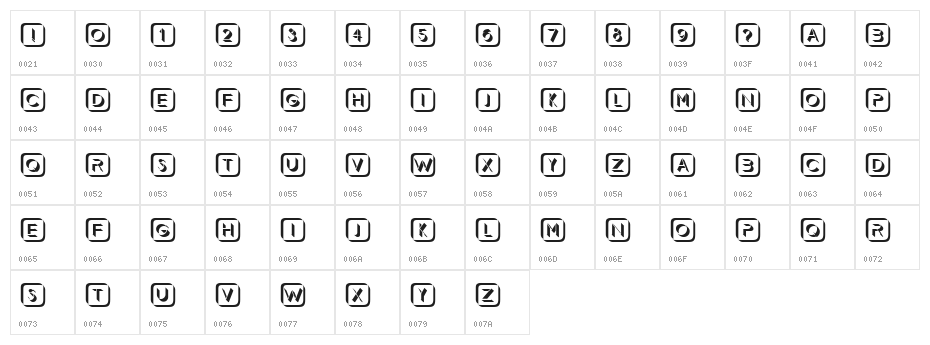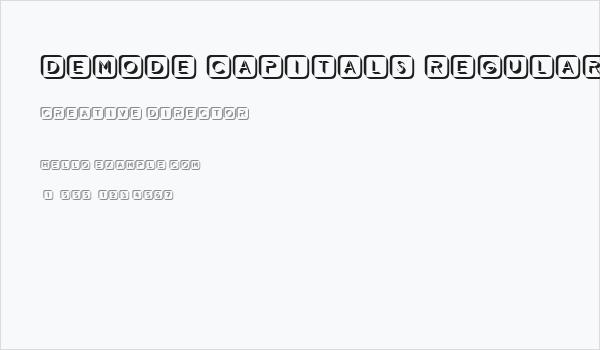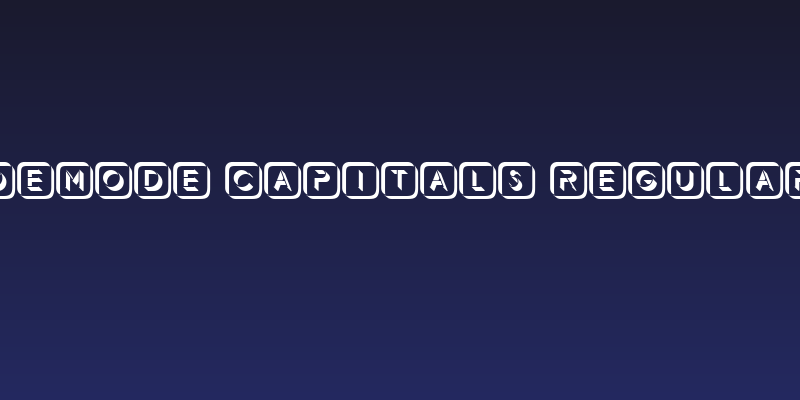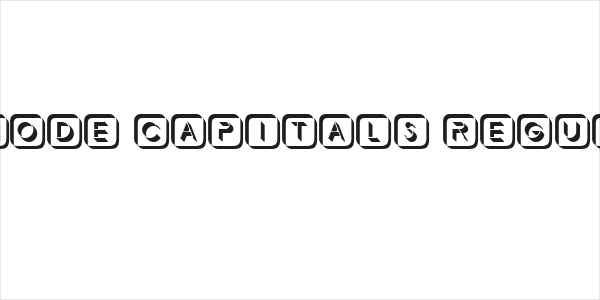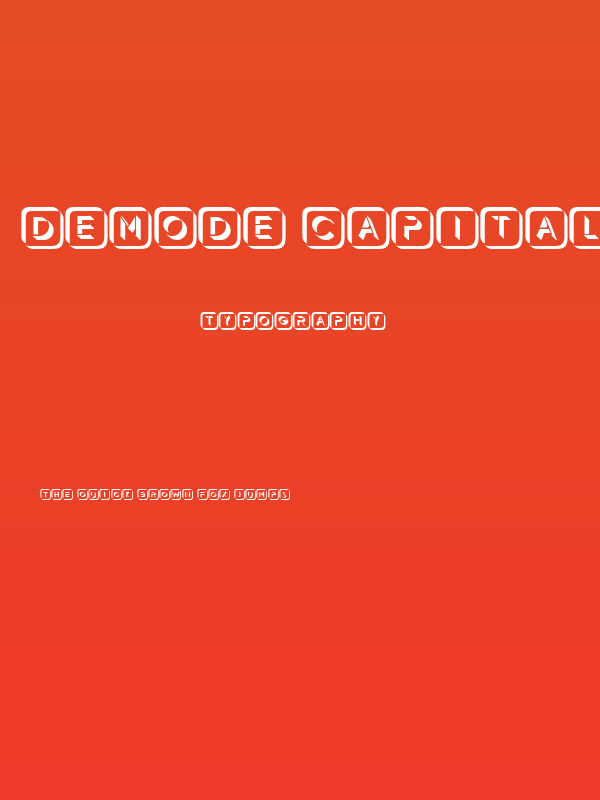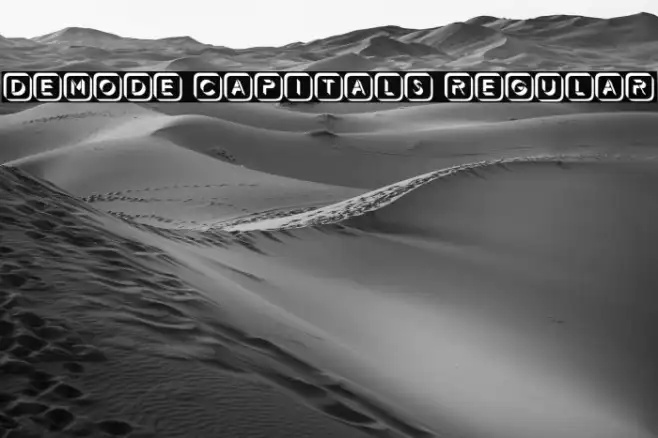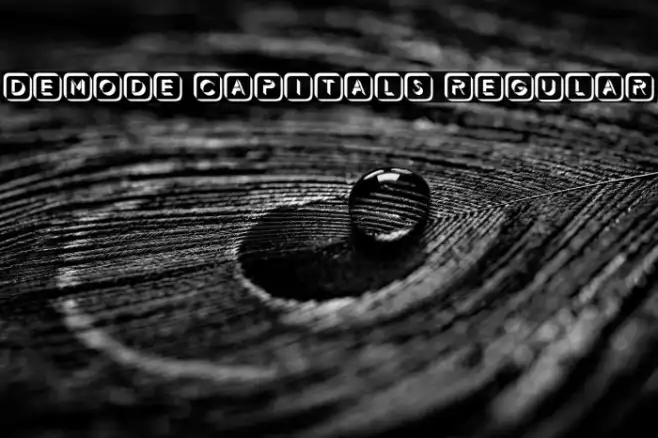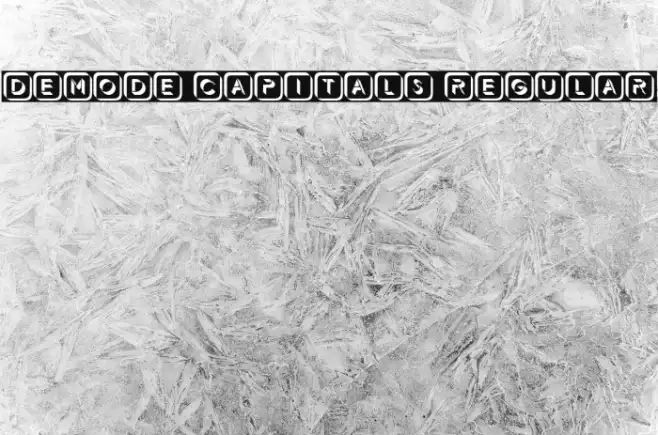
Demode Capitals Regular Font
Demode Capitals Regular Description
This font features a bold and modern design with each character enclosed in a rounded square, creating a unique and eye-catching appearance. The letters are uppercase and have a consistent geometric style, with thick lines and a slight shadow effect that adds depth. The numerals follow the same design principles, ensuring uniformity across the typeface. This font is ideal for projects that require a contemporary and distinctive look, such as branding, posters, or digital media. The enclosed design of each character makes it stand out, providing a strong visual impact.
| Proposed Projects | Ideal for branding, posters, digital media, and any project needing a contemporary and distinctive look. |